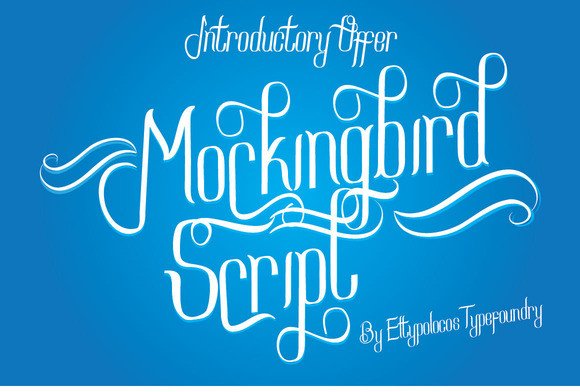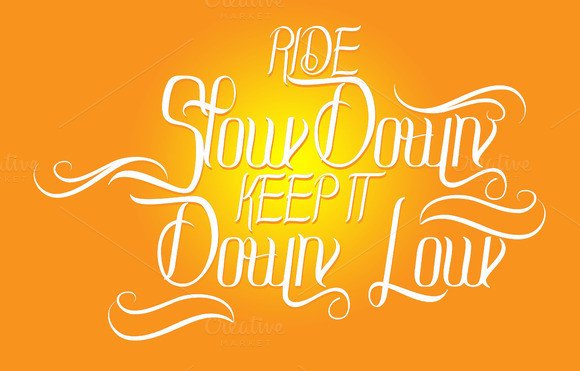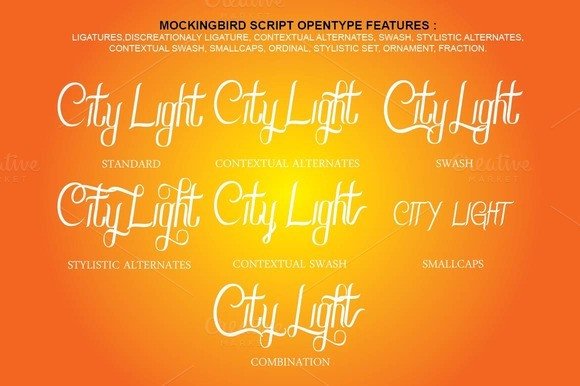
Mockingbird Script Font
About Mockingbird Script Font
Mockingbird script is a beautiful, classic, and fun script. Can be used for various purposes such as wedding invitations, logos, t-shirts, letterheads, signages and much more.